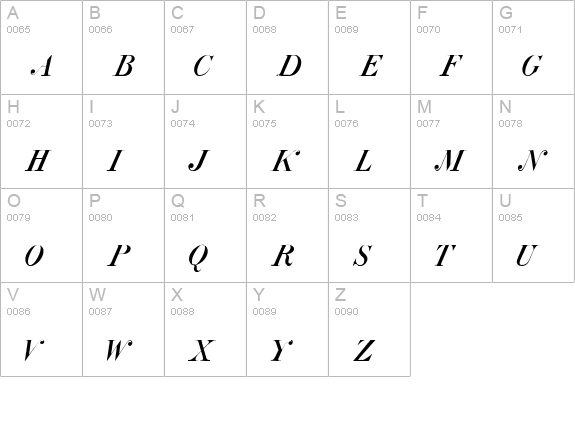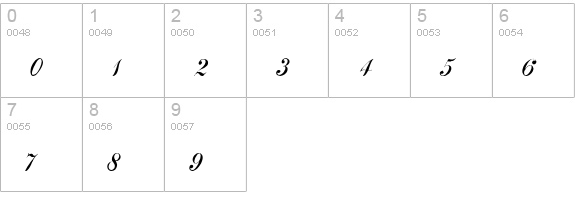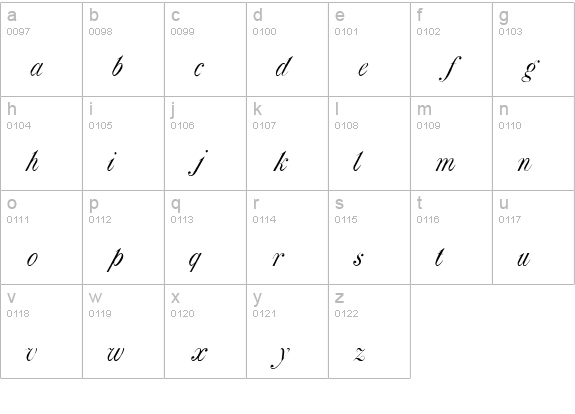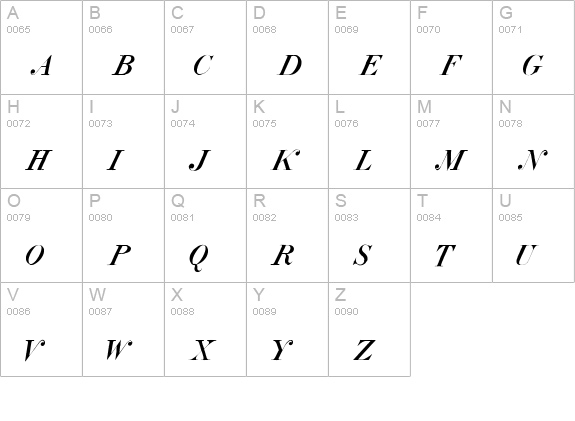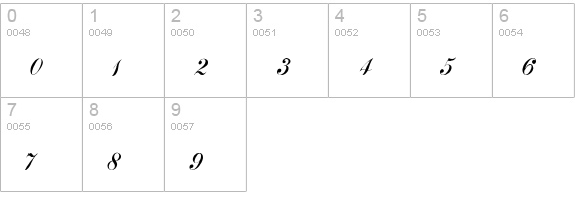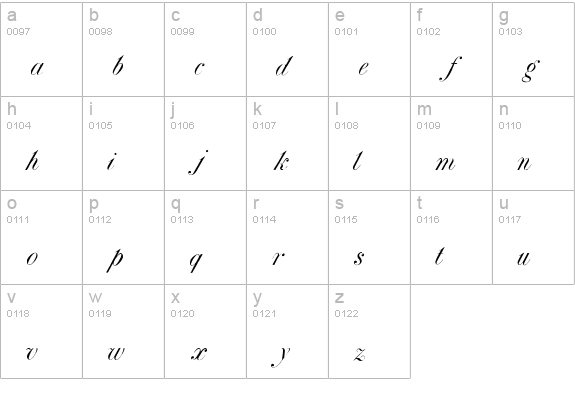
Atlas Italic HPLHS Font Details
Atlas Italic HPLHS is a distinctive, italic variant in the Atlas typeface family \xE2\x80\x94 well suited to design and typography projects.
Introducing Atlas Italic HPLHS font, a sleek and modern typeface that exudes sophistication and elegance. This italic variation of the Atlas font family offers a unique twist with its slightly slanted and stylish letterforms. Perfect for adding a touch of flair to any design project, from branding to editorial layouts. What sets Atlas Italic HPLHS font apart is its versatility - it can be used for both headings and body text, making it a practical choice for a wide range of design applications. The clean lines and balanced proportions of this font ensure readability while still making a statement. Best of all, Atlas Italic HPLHS font is available for free download at FontsMarket.com. Whether you're a seasoned designer looking to refresh your font collection or a beginner exploring typography, this font is a must-have addition to your toolkit. Download now and elevate your designs with the timeless elegance of Atlas Italic HPLHS font.